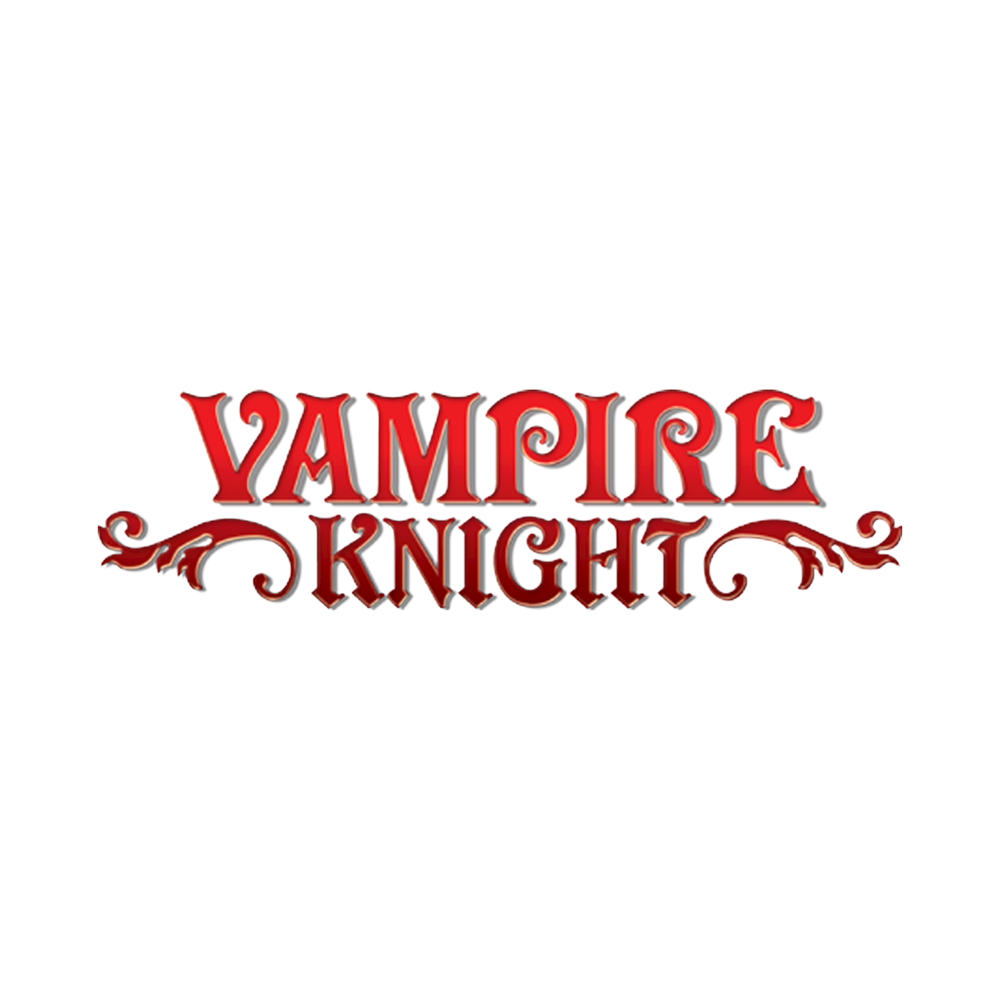
Vampire Knight Font
The manga series' title is written in a slightly modified version of Victorian, the typeface was inspired by display letterforms of the late 19th century. Neo-Victorian, similar though rough, is another free option available for download in the Fonts Used Section.